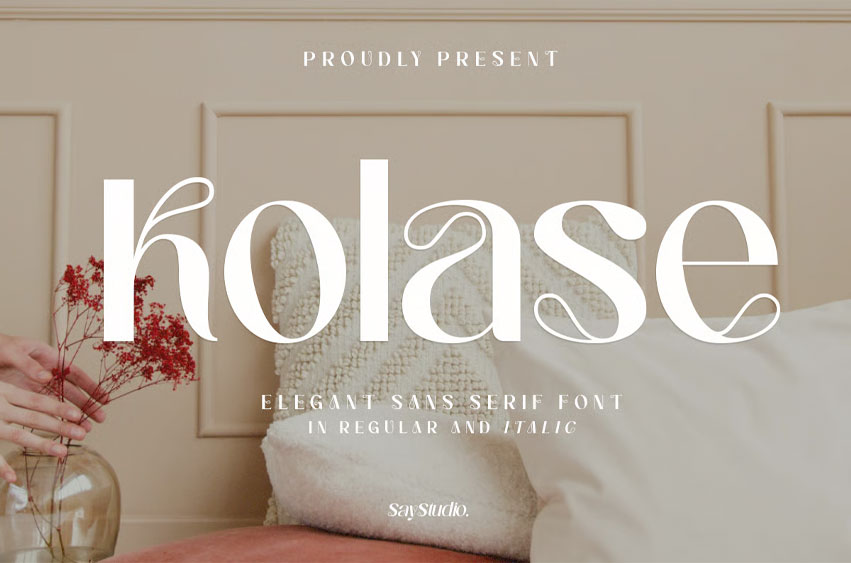
Kolase Font
Kolase Font is a contemporary serif font that seamlessly blends graceful curves with flexibility. The second ornate character set can be used as a standalone font, but can also be easily integrated into regular character sets. Kolase clean & classy option for modern logo & brand designs, product packaging, attention-grabbing display text, website headers, invitations & more.
• Alternates Character